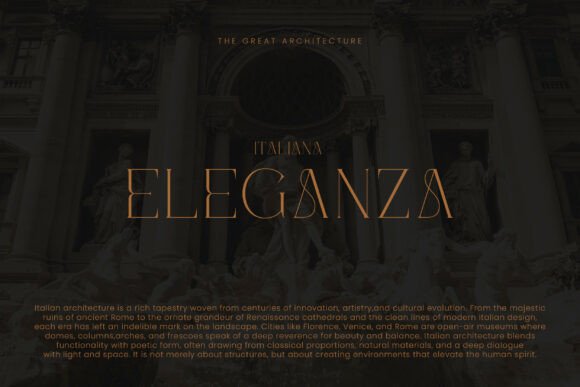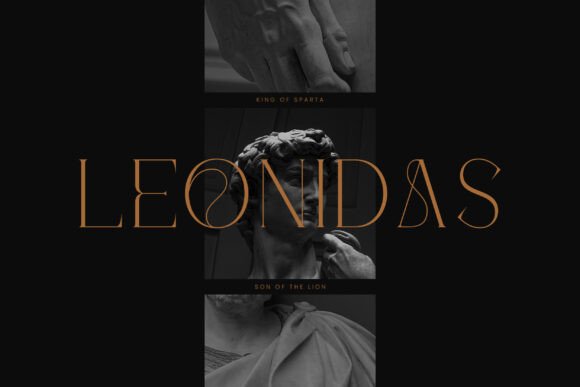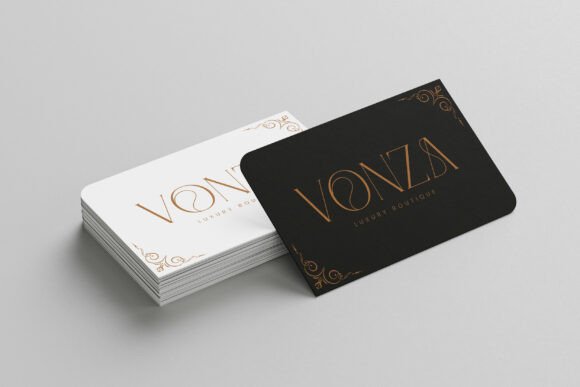
Introduction to Ozean Font
Imagine you’re in the midst of a creative project, pouring your heart and soul into designing a luxurious brand or a high-end editorial piece. You’re searching for the perfect font to convey opulence and sophistication, but nothing seems to fit the bill. That’s where the Ozean Font comes in – a game-changing serif font that elevates your design to new heights.
As a designer, you understand the importance of having a high-quality design resource at your disposal. The Ozean Font delivers exactly that, offering a free download that’s perfect for any creative project. With its unique blend of classic tradition and modern aesthetics, this font is sure to make your design stand out. Its elongated letterforms and high-contrast strokes create a sense of grandeur, making every letter a visual statement that commands attention.
Key Features of Ozean Font
- High-quality vector design with a transparent background, ideal for use in various creative projects.
- Designed with a unique, modern aesthetic, making it perfect for use in logos, branding materials, and other design resources.
Honest Review: Ozean Font
I recently came across the Ozean Font and decided to give it a try for my latest creative project. As a designer, I’m always on the lookout for high-quality design resources, and I’m happy to report that Ozean Font definitely delivers.
Here are some of the things that I like about Ozean Font:
- ✨ High quality and smooth typography – the font looks great on both screen and print.
That being said, I do have a few minor complaints:
- ⚠️ Limited character set – while the font is beautiful, I wish it had a more comprehensive set of characters and symbols.
- ⚠️ Not ideal for long-form text – while it’s great for headlines and titles, I found it to be a bit too ornate for large blocks of text.
Overall, I’m really impressed with the Ozean Font and would definitely recommend it to other designers looking for a high-quality, creative font for their next project.
Ozean Font
Tips for Getting the Most Out of Ozean Font
Use Ozean Font with a transparent background to create a stunning visual effect. Experiment with different font sizes and colors to add depth and interest to your design.
The Ozean Font is perfect for creating eye-catching titles, headings, and captions. It’s also great for designing social media graphics, presentations, and documents.